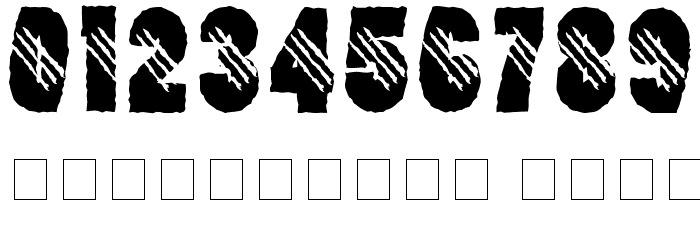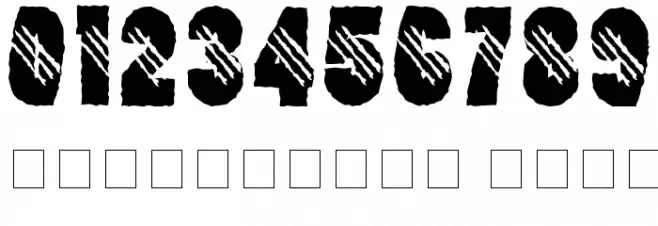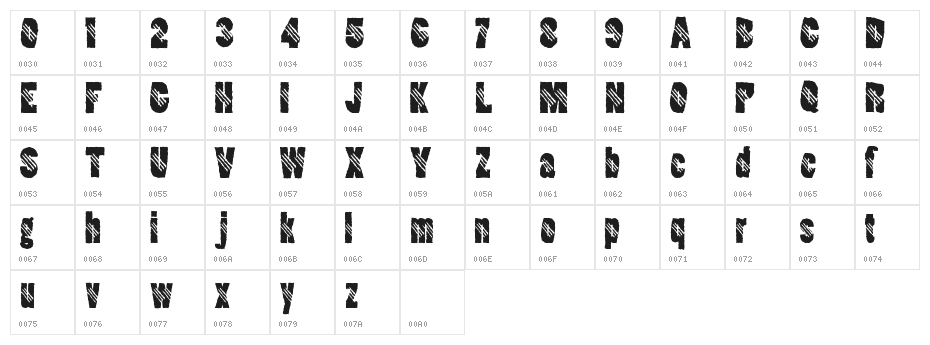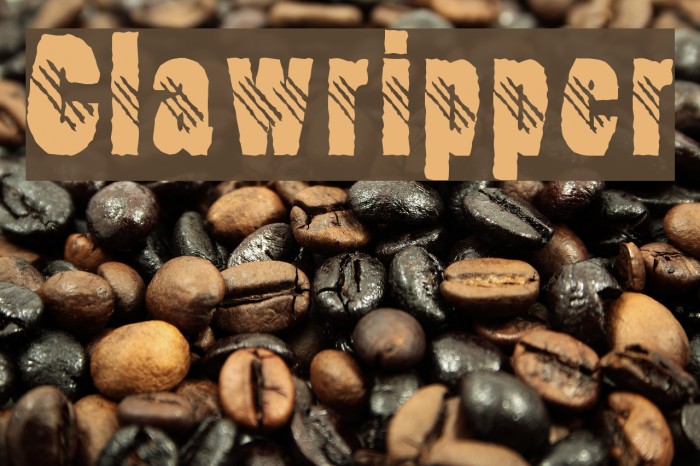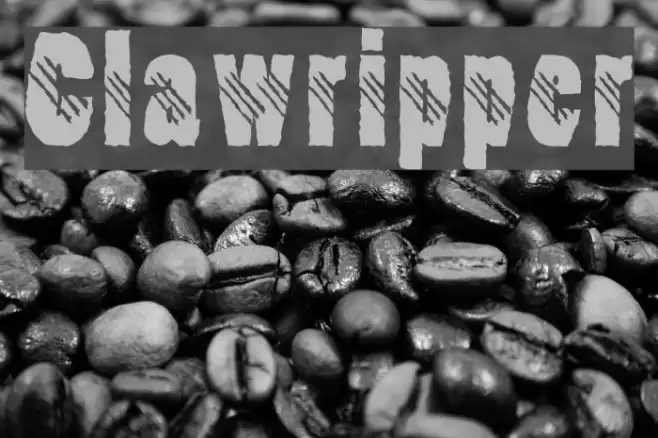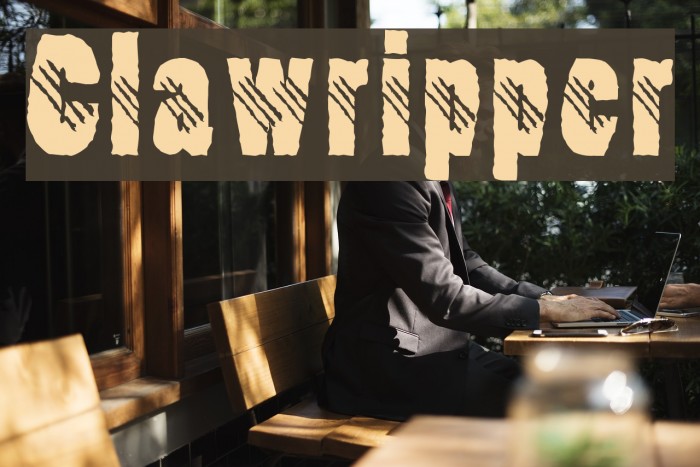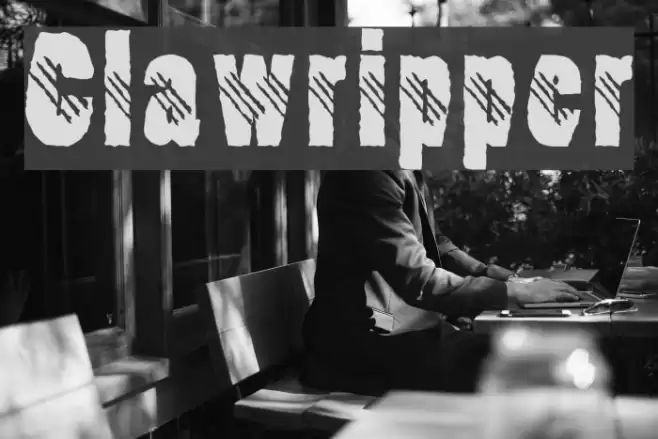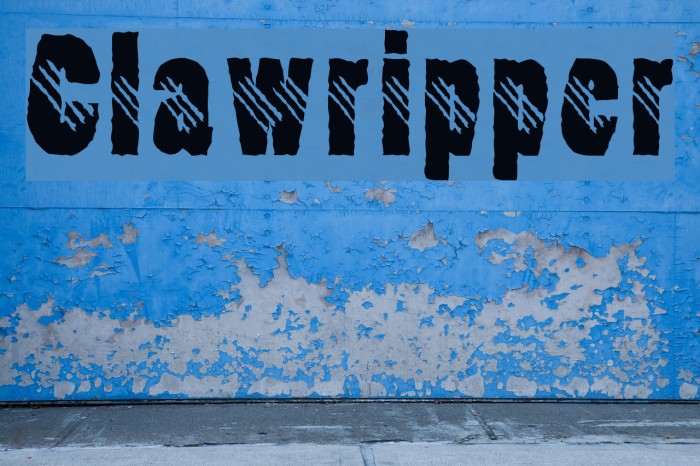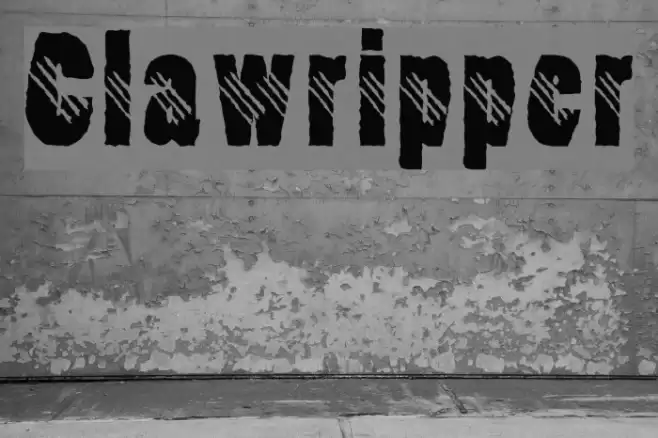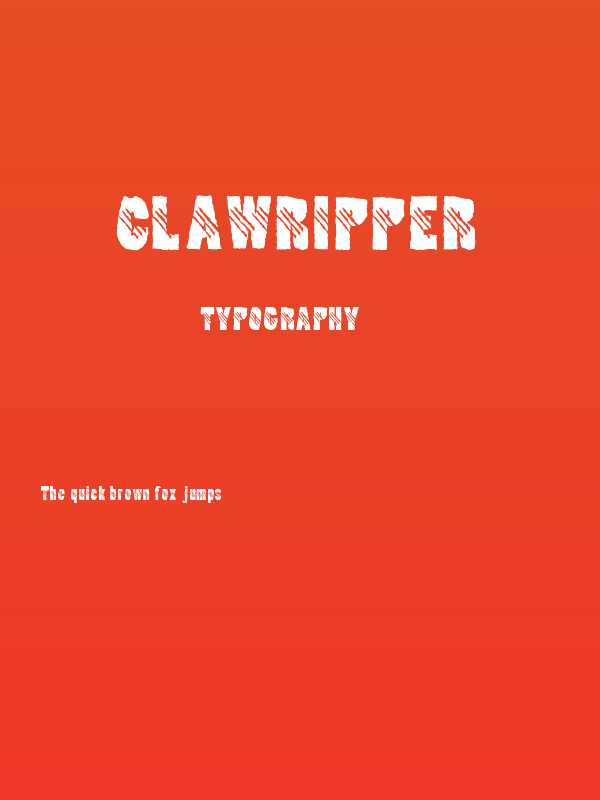
Clawripper Font
Clawripper Description
This font features a bold and rugged design, characterized by its distressed, claw-like slashes across each character. The letters are thick and blocky, giving a sense of strength and impact. The unique texture adds a dynamic and edgy feel, making it stand out in any design. The uppercase and lowercase letters maintain a consistent style, while the numbers and special characters complement the overall aesthetic. This font is perfect for projects that require a bold statement or a gritty, urban vibe.
| Proposed Projects | Ideal for posters, album covers, video game graphics, and branding that requires a strong, impactful presence. |